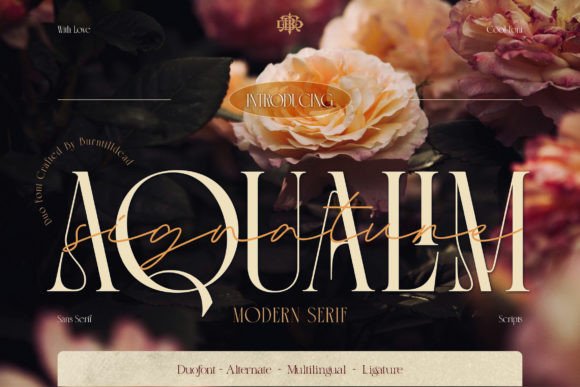
The Ultimate Font for Classy and Luxurious Designs: Aqualim Signature
Have you ever worked on a design project and struggled to find the perfect font that exudes elegance and sophistication? I certainly have! It was for a wedding invitation project, and I wanted a font that would make it look luxurious and high-end. That’s when I stumbled upon Aqualim Signature, a stunning duo font that combines the classic charm of serif with the elegance of script.
A Personal Review: What I Love About Aqualim Signature
Here’s what I love about Aqualim Signature:
- ✨ Perfect blend of serif and script: This unique combination gives Aqualim Signature a distinctive look that’s both classic and modern.
- ✅ Highly versatile: This font is perfect for a wide range of design projects, from headlines and logos to posters, quotes, and social media graphics.
- 💫 Luxurious feel: Aqualim Signature has an undeniable air of sophistication, making it ideal for high-end branding, wedding invitations, and product packaging.
- 🔍 Excellent legibility: The font is clear and easy to read, even at smaller sizes.
While Aqualim Signature is an excellent font, there are a few minor quirks to be aware of:
- 🤔 Some script letters may be tricky to use: The script part of the font can be a bit finicky, especially when it comes to letters like ‘Q’ or ‘Z’.
- ⚠️ Not ideal for body text: Aqualim Signature is best used for headlines, titles, and short paragraphs, as it may not be the most readable font for longer texts.
Aqualim Signature was created by a talented designer who wanted to combine the best of both worlds: the classic charm of serif fonts and the elegance of script fonts. The result is a truly unique font that’s both versatile and luxurious. While I couldn’t find any information on the actual designer, it’s clear that Aqualim Signature is a labor of love that will elevate your designs to the next level.